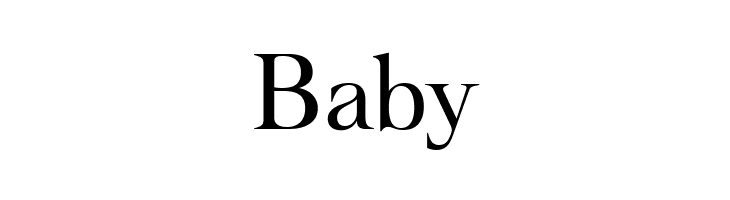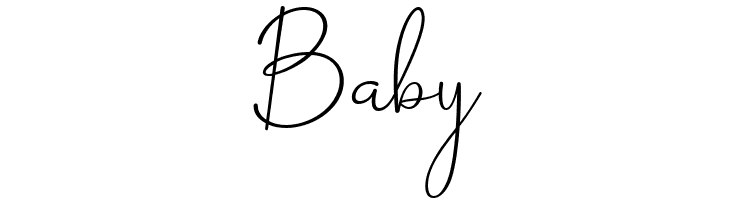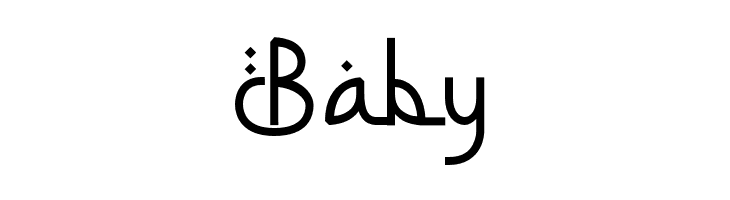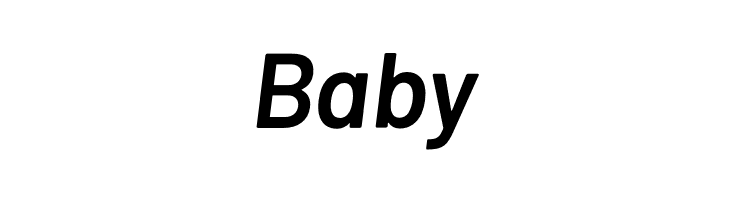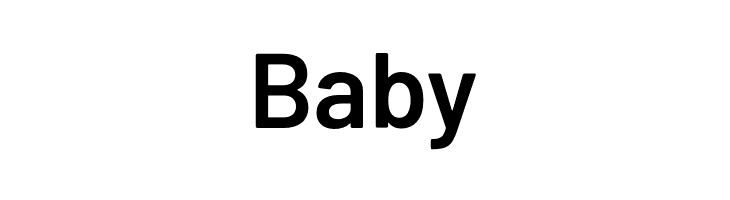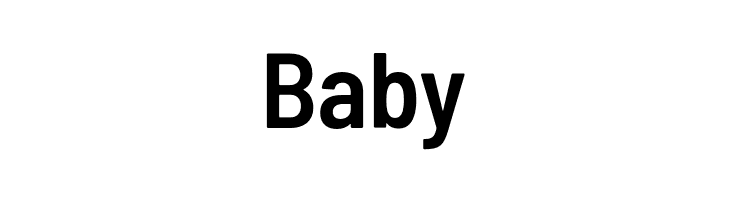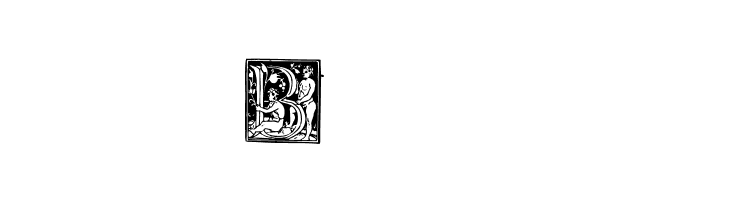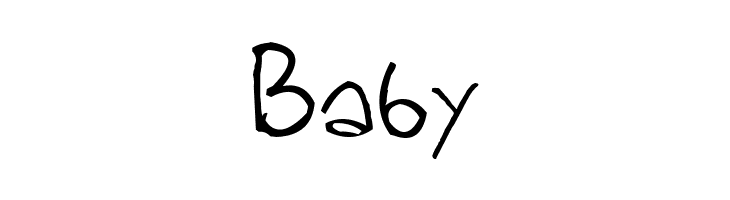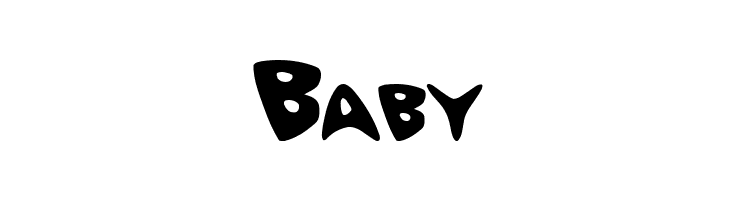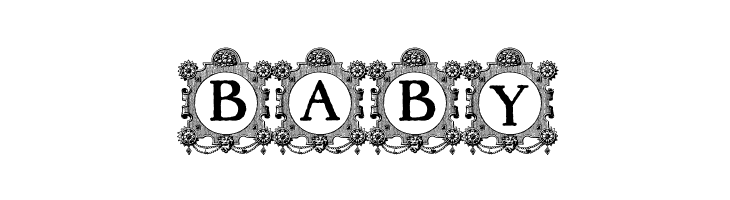
A modern, semi-condensed typeface with clean lines and uniform stroke width.
A modern, semi-condensed sans-serif font with uniform stroke width and balanced characters.
A modern, semi-condensed italic sans-serif font with medium weight, ideal for dynamic and clear communication.
A modern, semi-condensed italic typeface with medium weight and clean lines.
A modern, semi-condensed sans-serif font with a clean and professional look.
A modern, semi-condensed sans-serif font with clean lines and balanced proportions.
A bold, semi-condensed sans-serif typeface with a modern and clean design.
A modern sans-serif font with semi-condensed proportions and uniform stroke widths.
A modern, semi-condensed, semi-bold italic typeface with medium contrast and normal spacing.
A modern, semi-condensed, semi-bold italic font with a clean and dynamic style.
A modern, semi-condensed font with thin strokes and geometric shapes.
A modern, semi-condensed font with thin strokes and excellent readability.
A sleek, semi-condensed, thin italic font with a modern and dynamic style.
A sleek, modern semi-condensed thin italic font with elegant strokes.
A modern, semi-bold sans-serif font with clean lines and balanced proportions.
A modern, semi-bold, italic sans-serif font with a clean and dynamic style.
A modern, semi-bold italic sans-serif font with medium contrast and normal spacing.
A thin, modern sans-serif font with a clean and minimalist design.
A clean, modern sans-serif font with a thin weight and geometric design.
A sleek, modern italic font with thin strokes and a dynamic style.
A sleek, modern thin italic font with clean lines and subtle curves.
A casual, handwritten font with fluid and organic strokes.
An artistic Morse code representation using vertical bars.
A sophisticated and elegant handwritten script font with fluid, connected letterforms.
A bold, playful font with exaggerated curves and a whimsical style.
An ornate, Baroque-inspired decorative font with intricate floral patterns.
An ornate, decorative typeface with baroque embellishments and high contrast.
An ornate, Baroque-inspired decorative font with intricate floral designs.
An ornate, baroque-style decorative font with intricate frames around bold serif letters.
A decorative font with modern elements and unique diacritical marks.
A classic serif font with elegant strokes and pronounced serifs.
A graceful, cursive script font with a modern, handwritten style.
An ornate and decorative font with a medieval flair, featuring intricate letterforms and dramatic serifs.